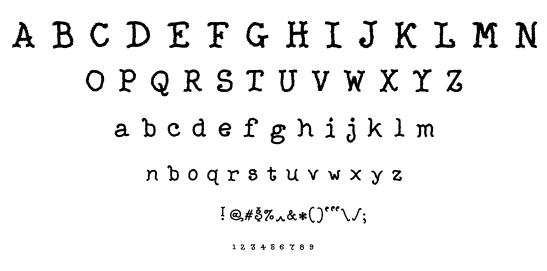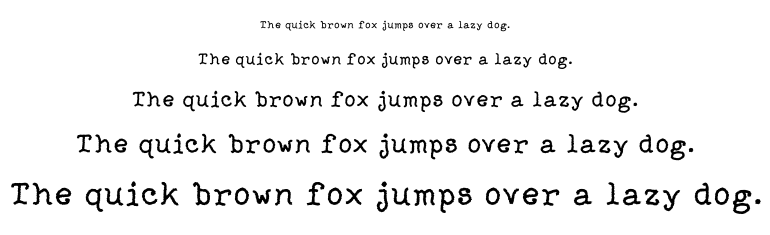
Home » Script » Handwritten » Righter Handwritten Righter Kevin Richey May 31, 2012 1 View 0 SaveSavedRemoved 0 Righter Font Righter.ttf Righter1.ttf Freeware - 2 font files Download 835 downloads Character Mapspecimen sheetwaterfallRighter1.ttf a little typewriter, a little Gorey, a lot of fun…